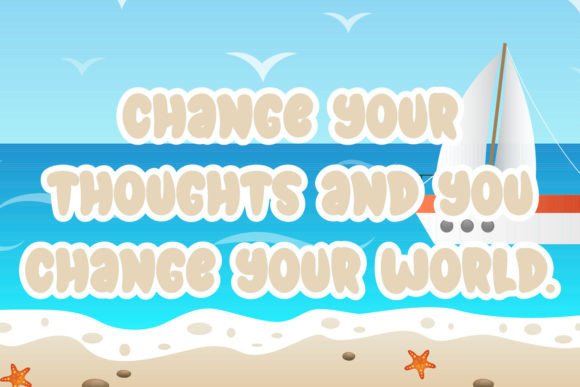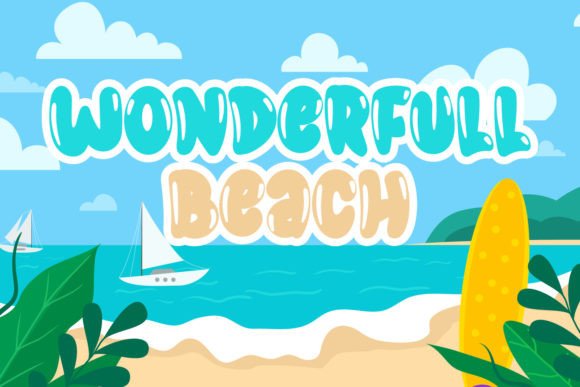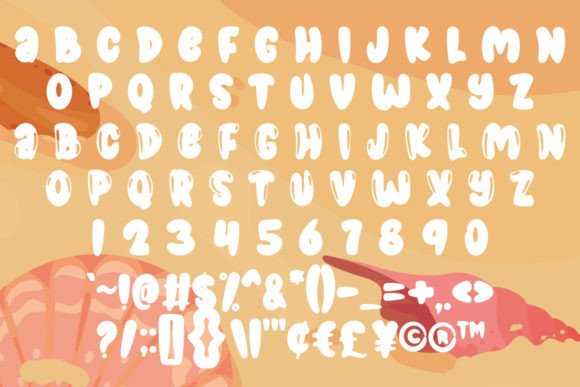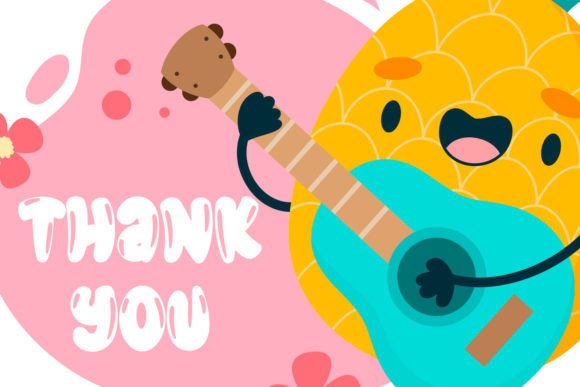
Introduction to Quirky Summer Font Font
Fonts play a crucial role in design, and the Quirky Summer Font font is a typeface that brings both character and versatility to any project. Whether you’re working on a branding project, a website, or a print design, the Quirky Summer Font font offers a unique style that can elevate your work.
Quirky Summer is a cool, fun, and playful display font.
It is the perfect font for titles or words needing a more dramatic emphasis Whatever the topic, this font will be a wonderful asset to your font library, as it has the potential to enhance any creation.
Key Features of Quirky Summer Font Font
Why Choose Quirky Summer Font Font?
The Quirky Summer Font font is more than just a typeface – it’s a design tool that helps you communicate your message with style and clarity. Its unique character set and versatile design make it suitable for a wide range of applications, from elegant invitations to bold headlines.
With its carefully crafted letterforms and balanced proportions, the Quirky Summer Font font ensures readability and visual appeal across all mediums.
What makes Quirky Summer Font font special?
The Quirky Summer Font font stands out with its unique design, exceptional readability, and versatility across various design applications.